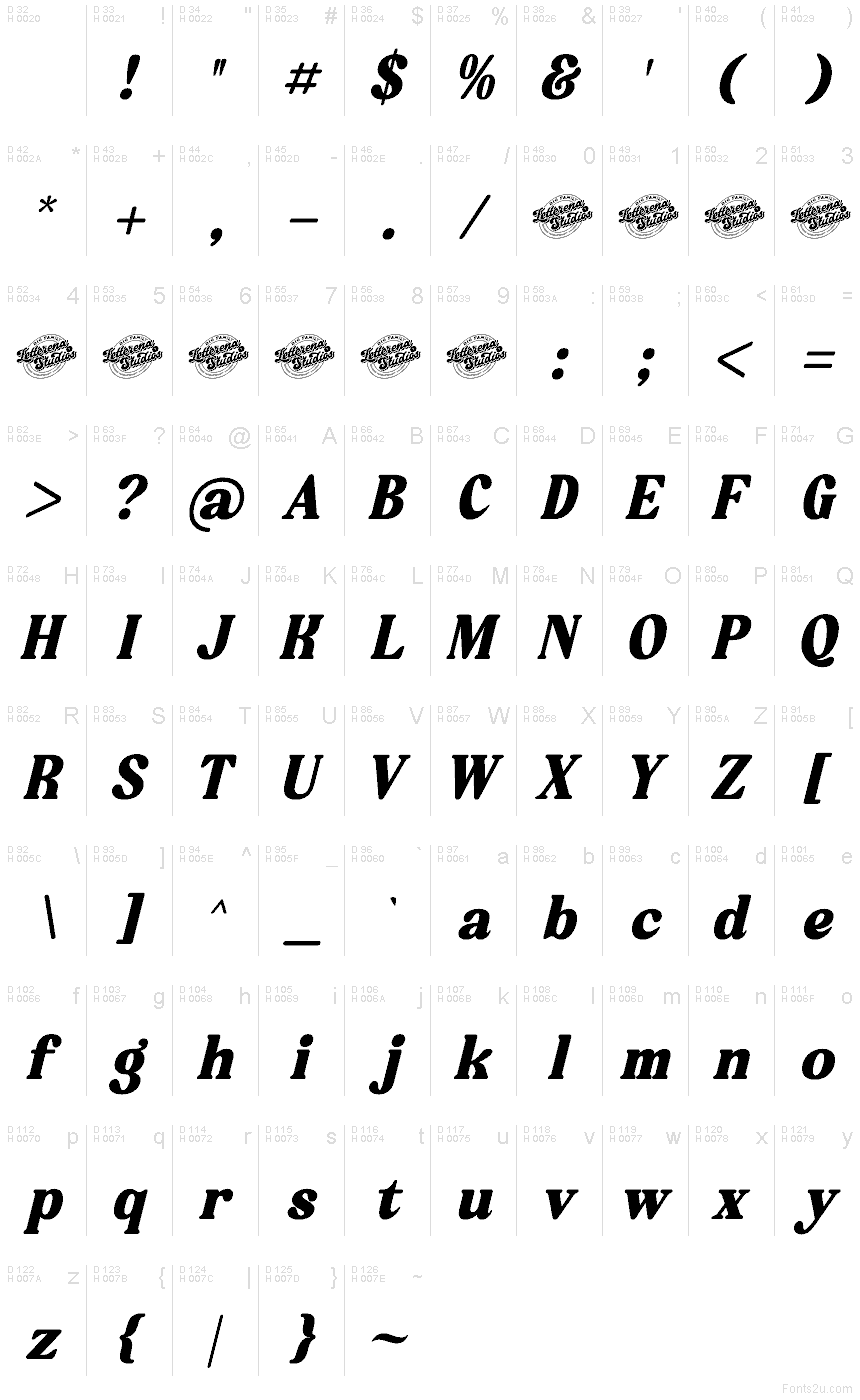
Bristle Radiant DEMO VERSION Italic
Bristle Radiant Italic font by Letterena Studios is a free bold italic display serif font. Built around a lush, inky stroke with high contrast and sharp wedge serifs, it leans forward with confident sweep—like a brush pulled through glossy paint. The Bristle Radiant family’s italic cut adds a lively rhythm and crisp bite, giving headlines a tactile, editorial sheen without feeling fussy.
Using Bristle Radiant Italic, your logos, beauty packaging, fashion lookbooks, event invitations, magazine covers, posters, and social banners gain dramatic presence at a glance. Its compact rhythm holds together at big sizes, while the angled stress keeps layouts feeling fresh and modern. This free font pairs beautifully with a quiet, neutral sans for body copy, and sings when set large with slightly looser tracking.